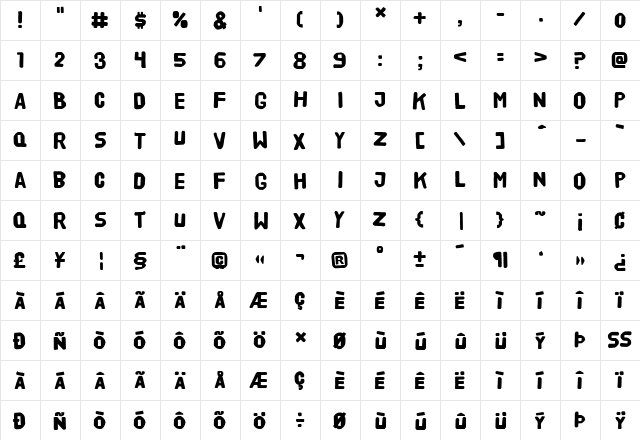
HVD Poster Clean Regular
| Foundry | Hannes von Dڨren |
| Designer | Hannes von Dڨren |
Design Context for HVD Poster Clean Typeface
HVD Poster Clean is a composed and adaptable typeface that performs quietly and consistently across a wide range of design contexts.
Pro Tip: Use HVD Poster Clean in both headline and body roles to test its range before committing to a single application.